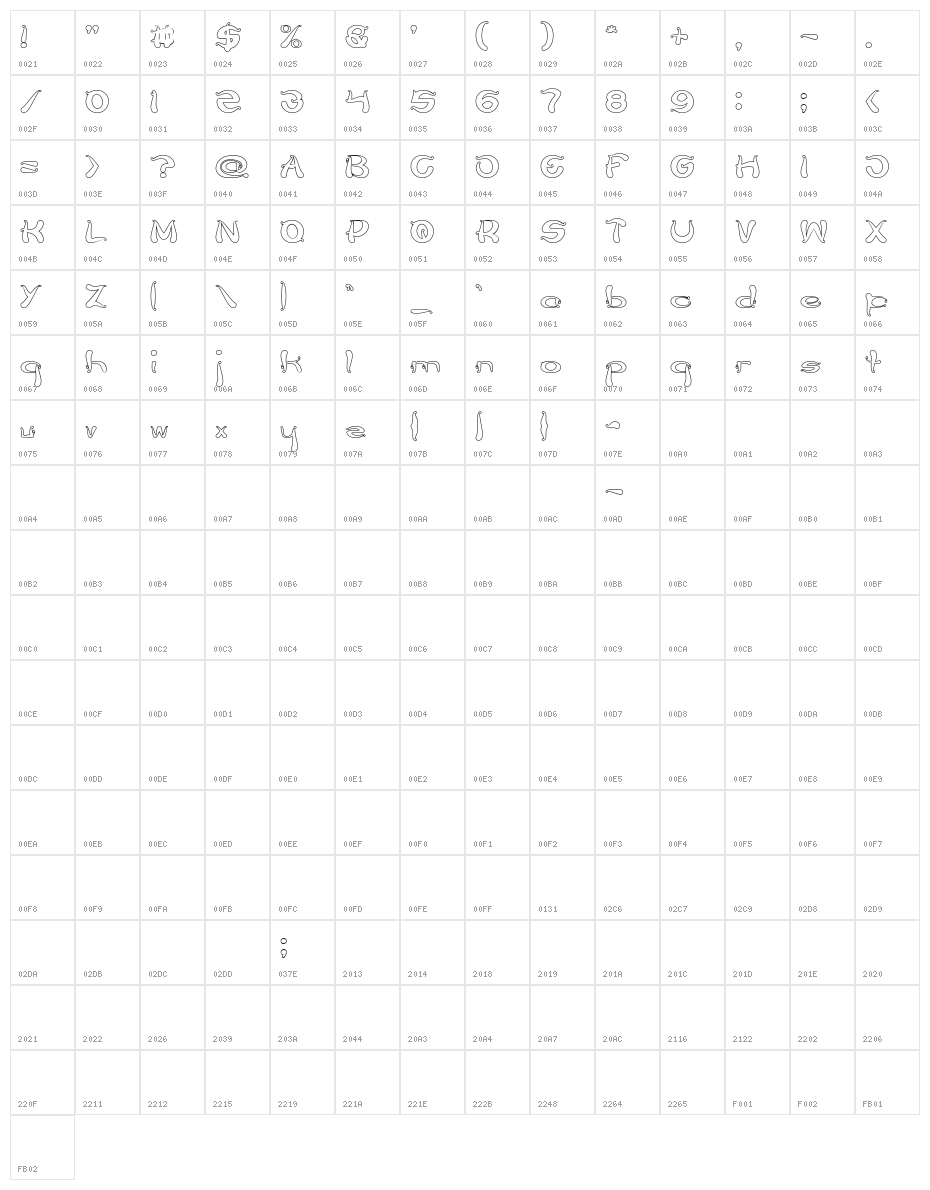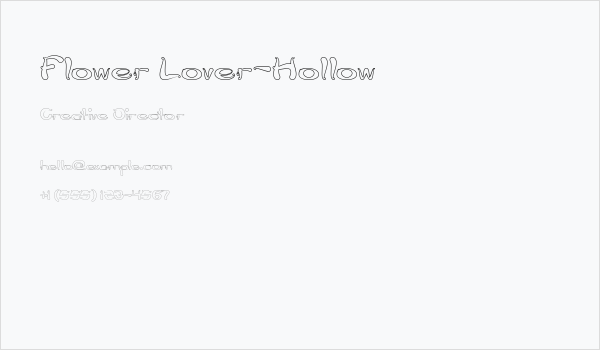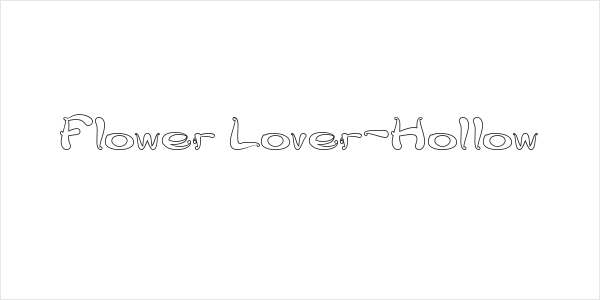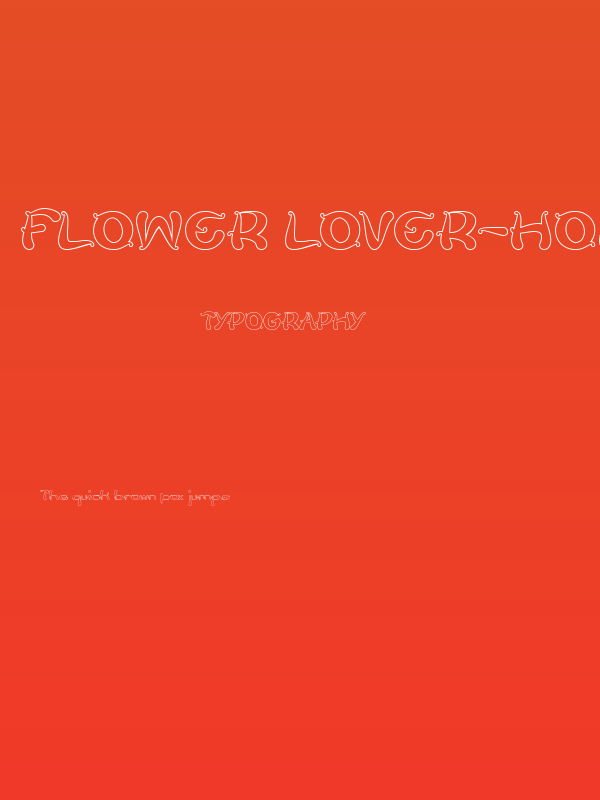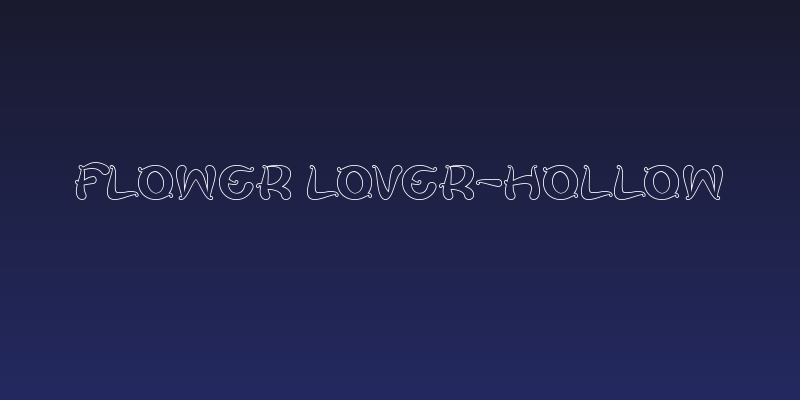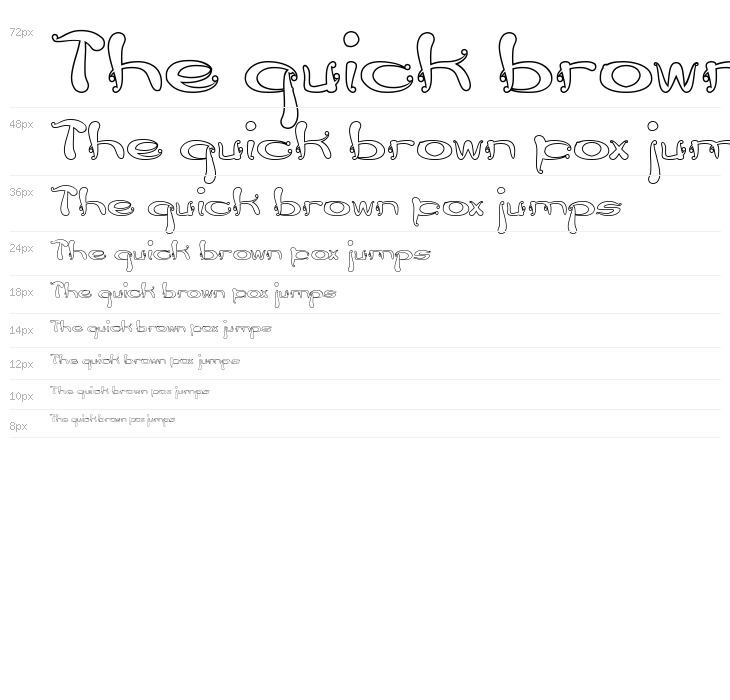
Flower Lover-Hollow Font
Flower Lover-Hollow Description
This font features a whimsical and playful design, with each character outlined in a hollow style that resembles the delicate curves of flower petals. The letters have a unique, organic flow, giving them a hand-drawn appearance. The uppercase and lowercase letters maintain a consistent style, with rounded edges and subtle flourishes that add to the decorative nature of the font. Numbers and special characters are similarly styled, ensuring a cohesive look across all elements. This font is perfect for projects that require a touch of creativity and charm.
| Proposed Projects | Ideal for greeting cards, invitations, children's book covers, and playful branding. |